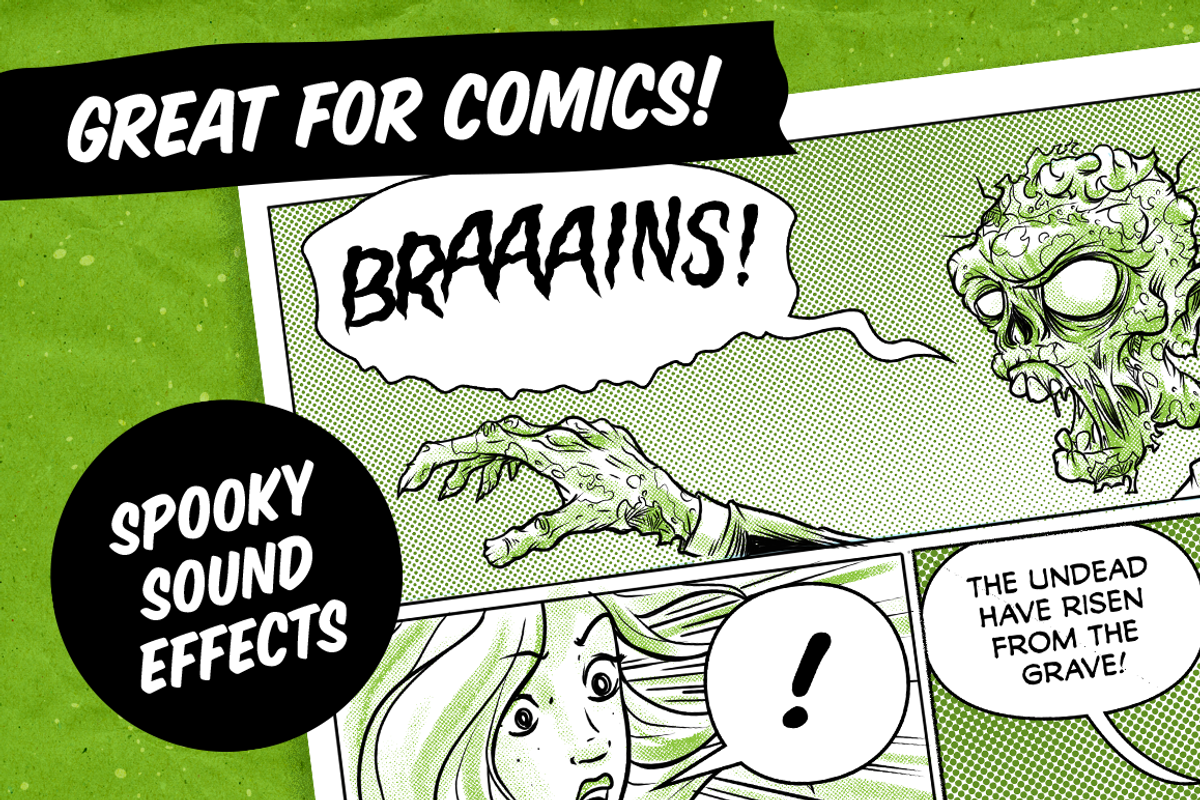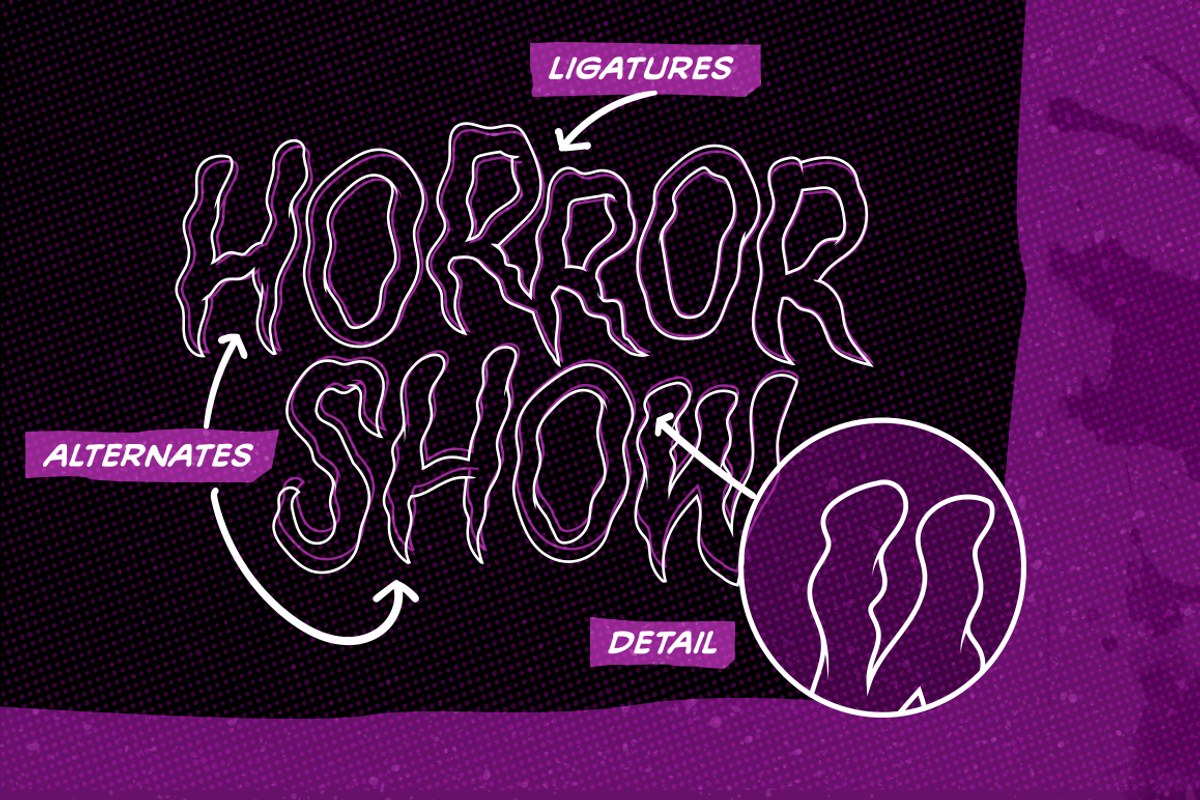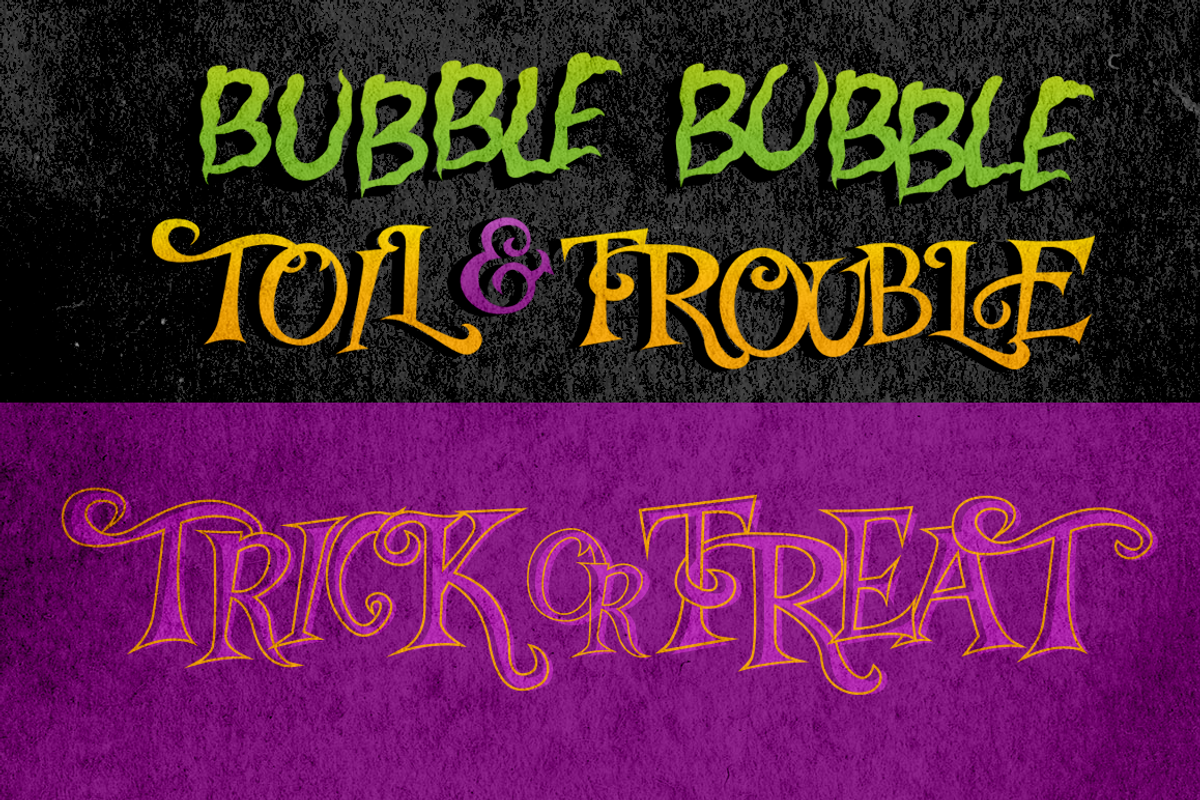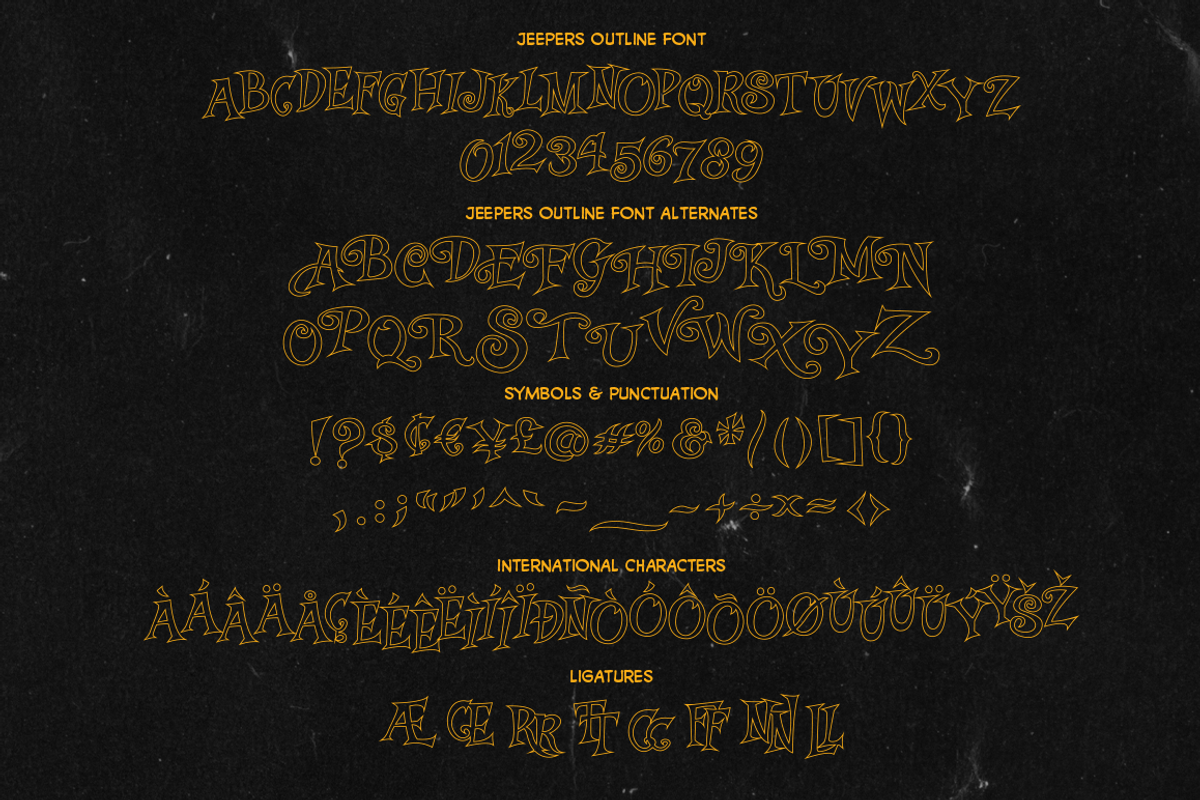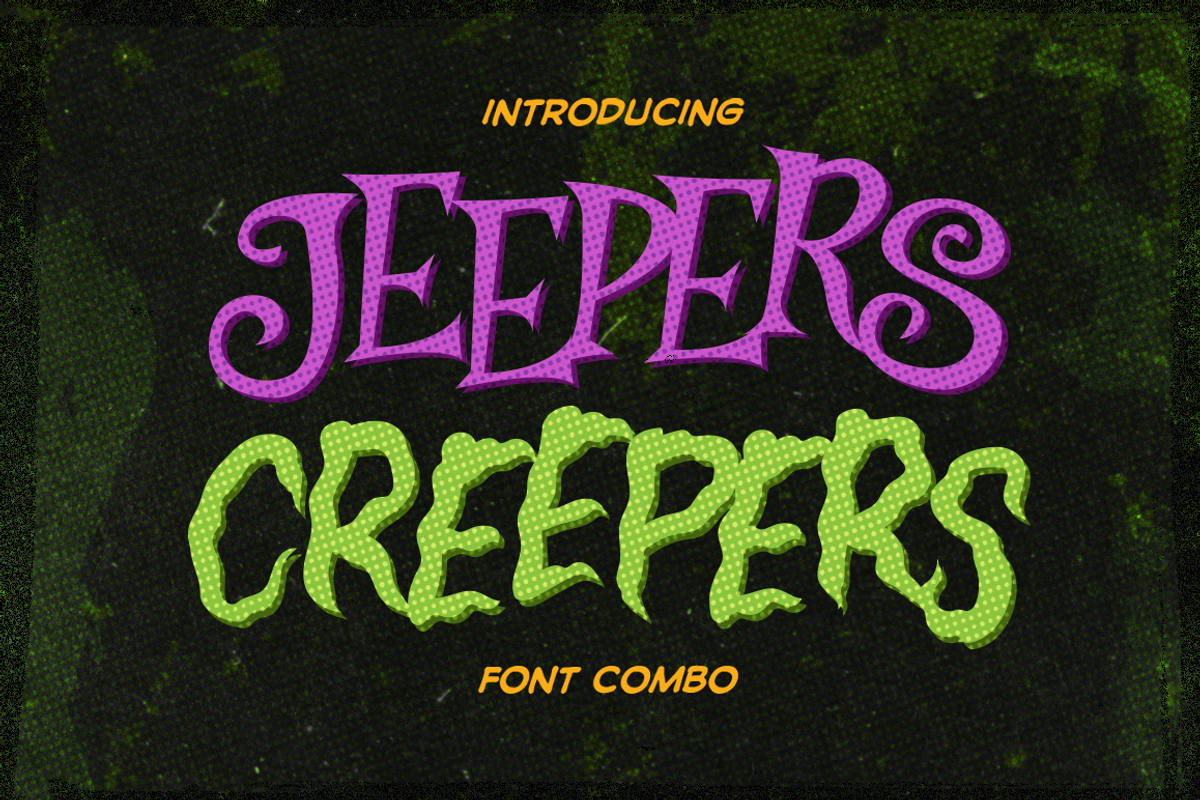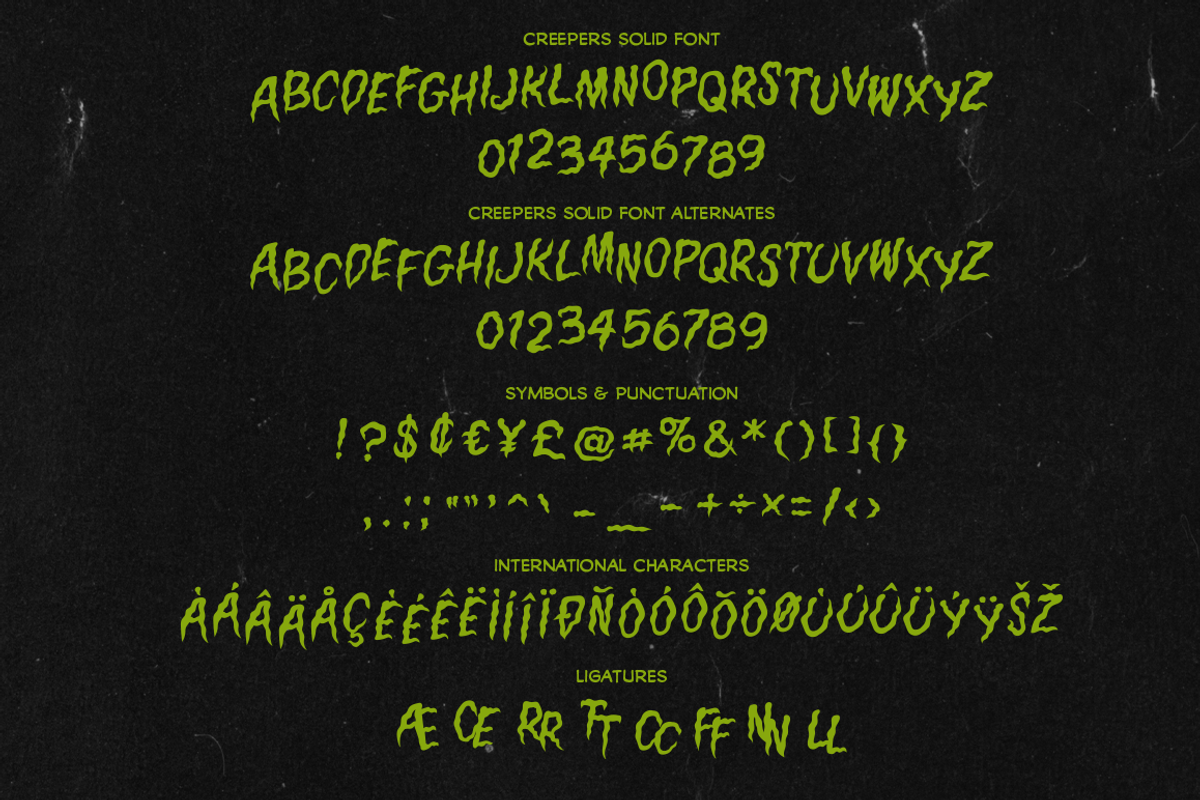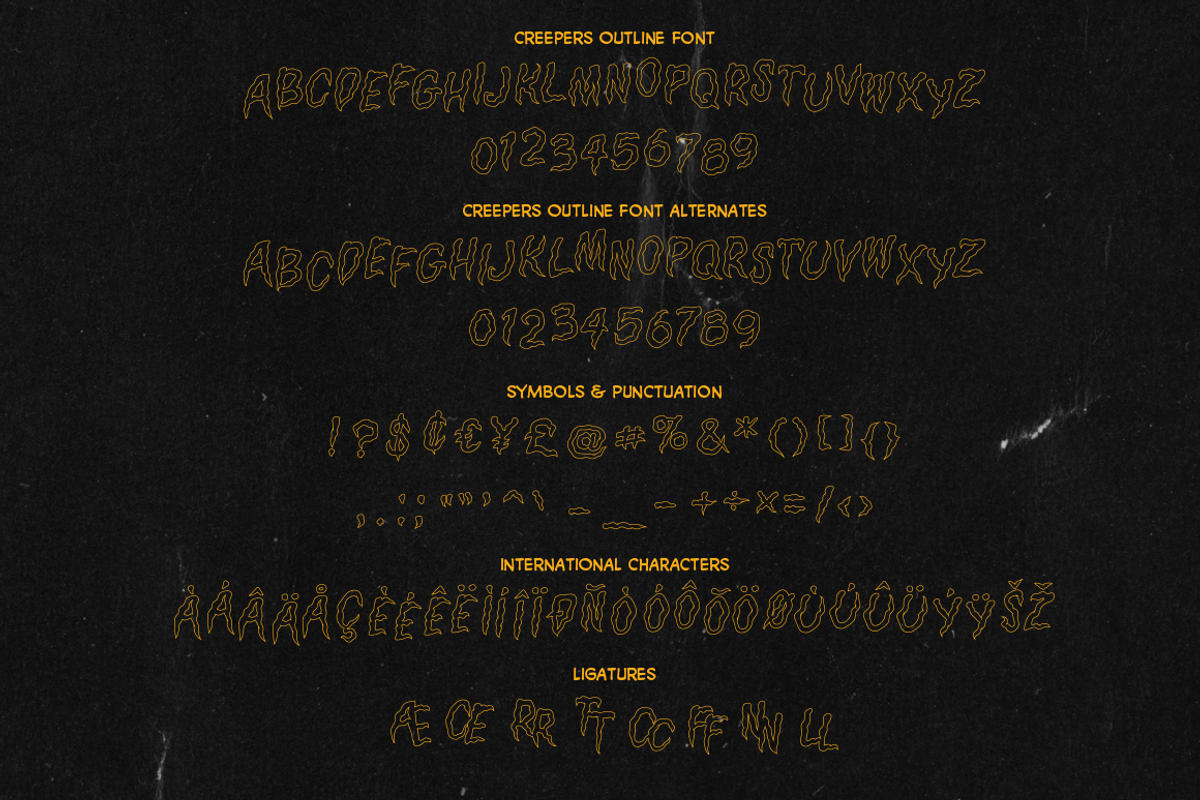
Jeepers Creepers Font Combo
A spine-chilling font combo that conjures up the kooky and extraordinary feeling of the supernatural.
Inspired by the vintage pulp novels and graphic horror comics of the 60s and 70s, the Jeepers Creepers type combo is sure to envoke a sense of mystery and curiosity to your comics, posters, flyers, illustrations, and more.